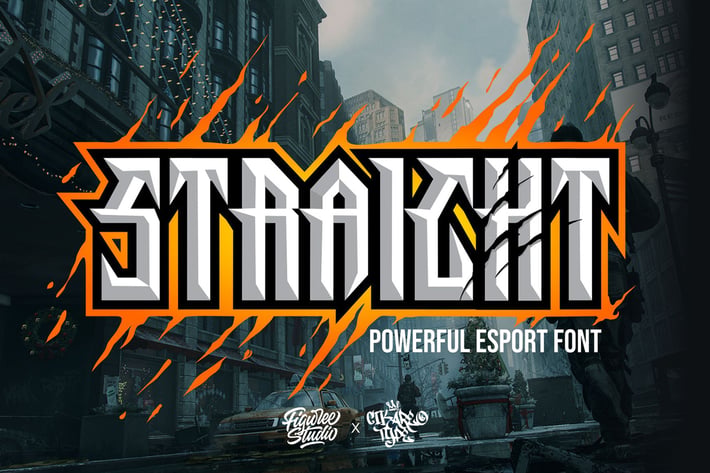
Straight - Powerful Esport Font
Hello Everyone, introduce our new product Straight - Powerful Esport Font, inspired by the title of the sports poster and We make it very energetically. Straight font with strong and challenging nuances. very suitable for the e-sport logo squad, title, typography, Poster, magazines, brochures, packaging, Websites, and much more for your design needs, making your designs more powerful, modern and professional